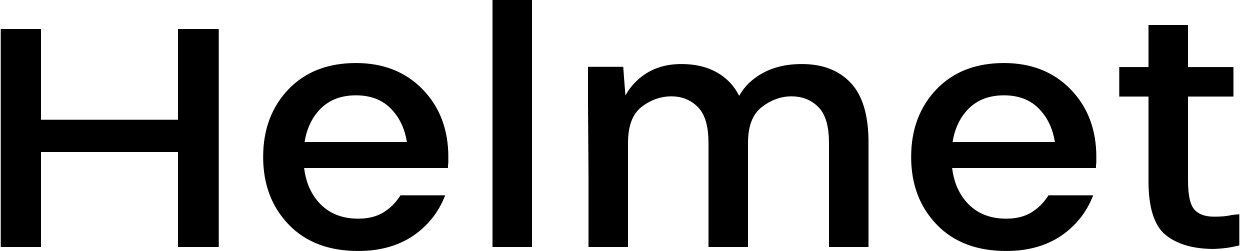
Helmet Font
The Helmet font is just what you’re looking for. It’s a simple sans serif font inspired by Swiss classics such as Helvetica and Univers. However, it makes use of dimensions like width and x-height to produce a distinct a…
The Helmet font is just what you’re looking for. It’s a simple sans serif font inspired by Swiss classics such as Helvetica and Univers. However, it makes use of dimensions like width and x-height to produce a distinct appearance and feel. Helmet is ideal for professional designs that require a clean, modern look. Try it out right now!
Helmet is a neo-grotesque display typeface, currently with a single font. It takes inspiration from Swiss classics like Helvetica and Univers but plays with proportions such as width and x-height to create a unique look and feel. Licensed under the SIL Open Font License, the font is available for free both for personal and commercial use.